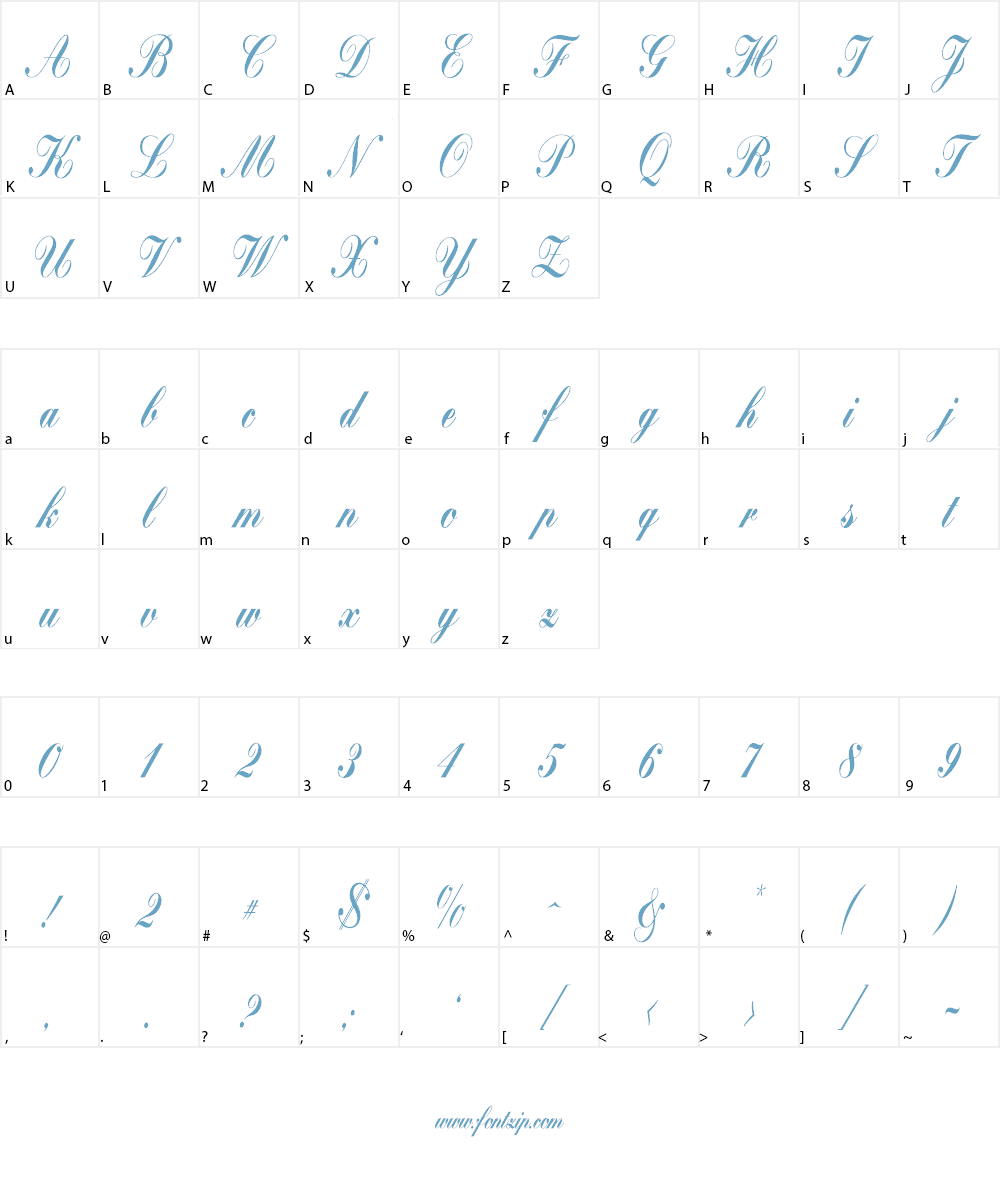
Bolina is Bolina Script Condensed on page 97 of The Solotype Catalog of 4,147 Display Typefaces and also on page 12 of Script and Cursive Alphabets: 100 Complete Fonts by Dan X. Solo.